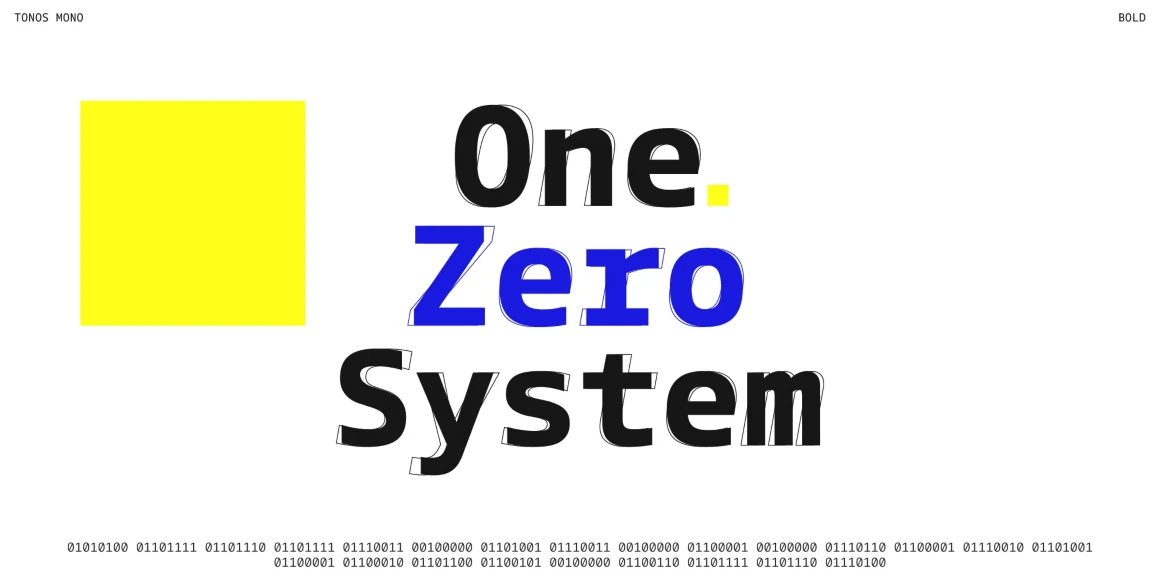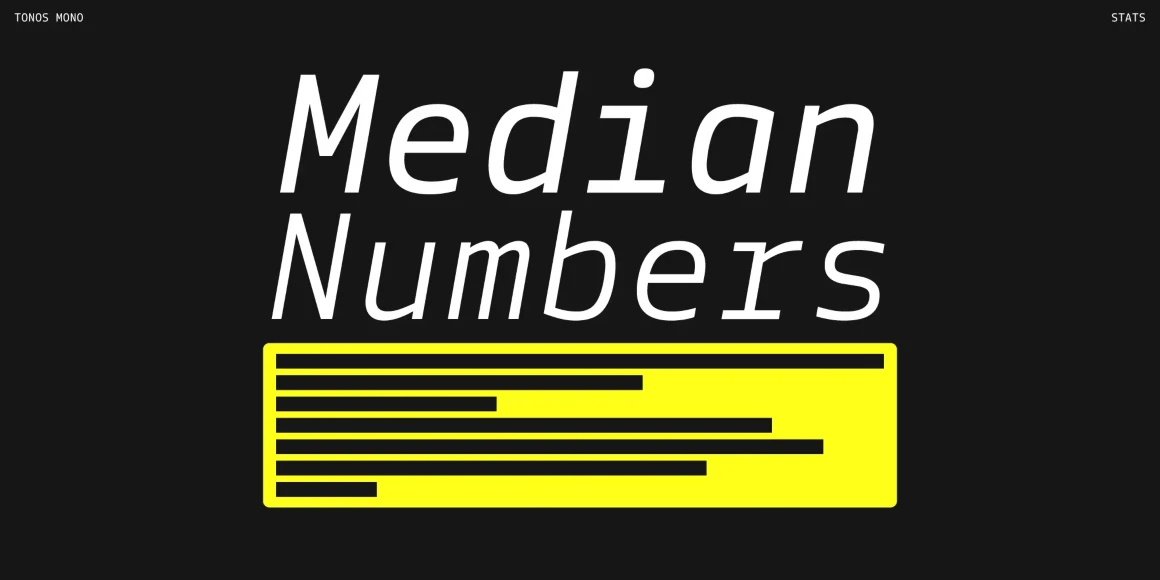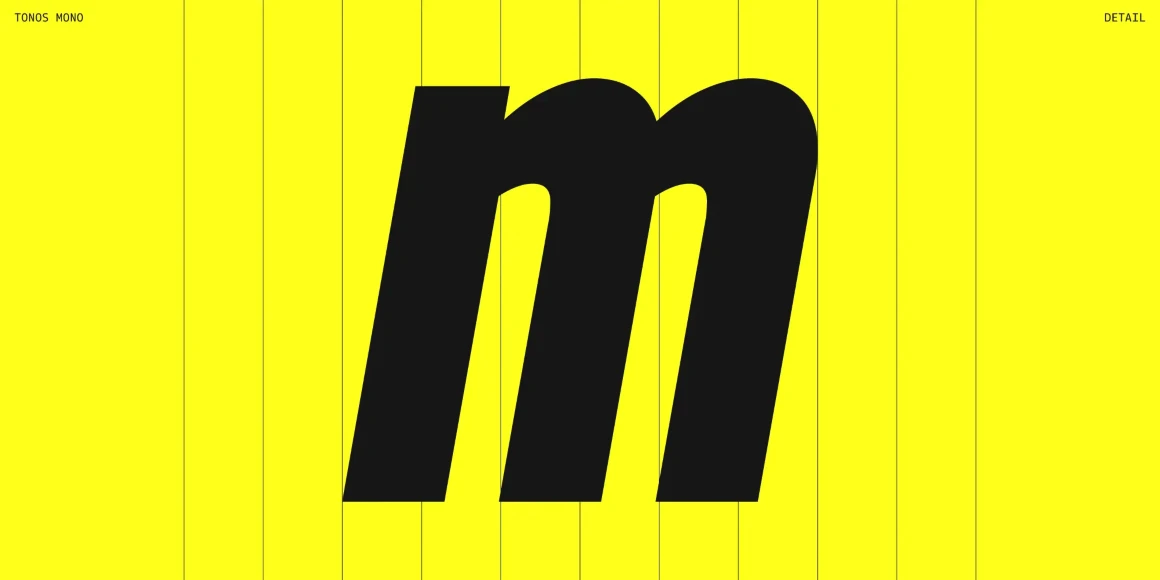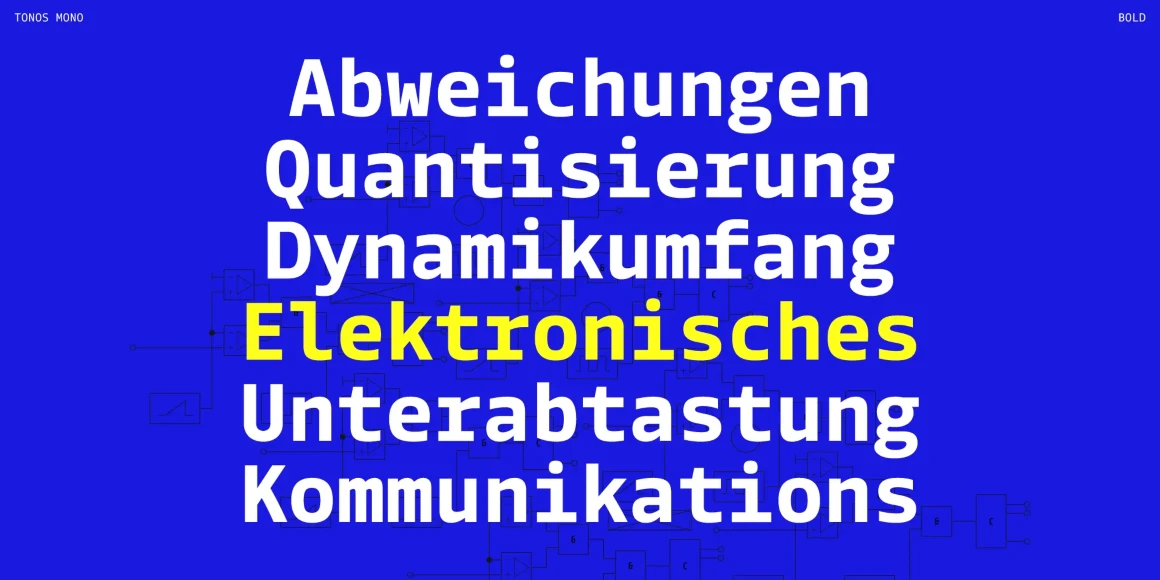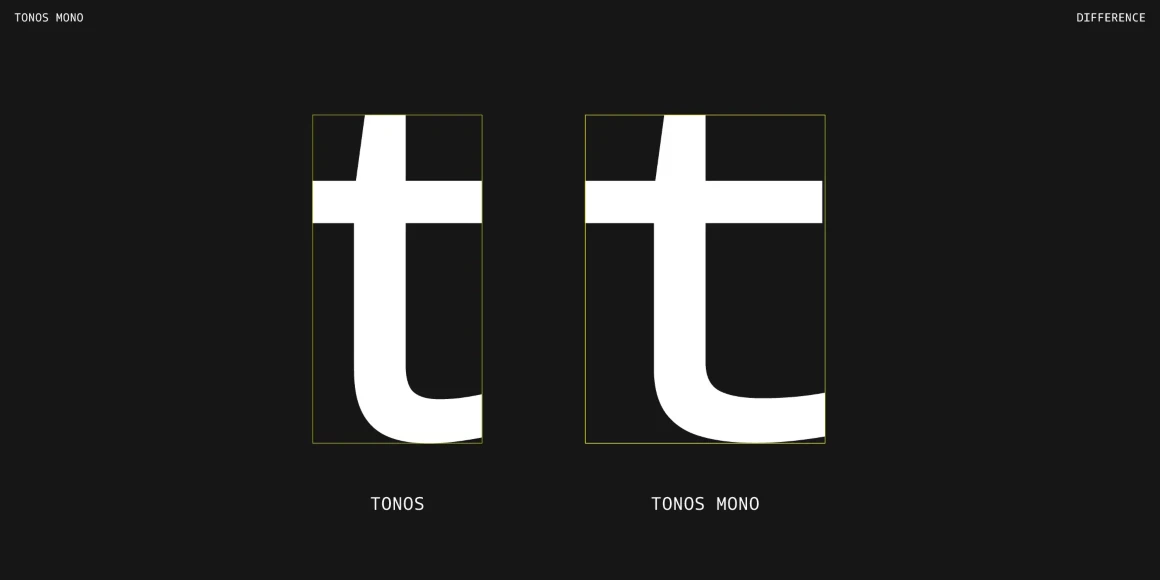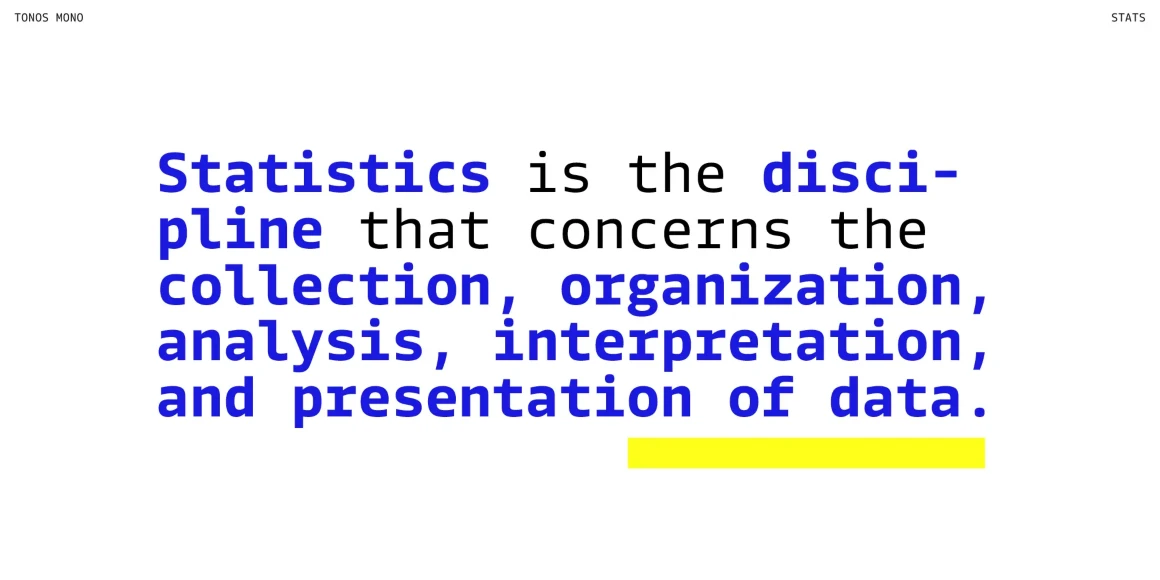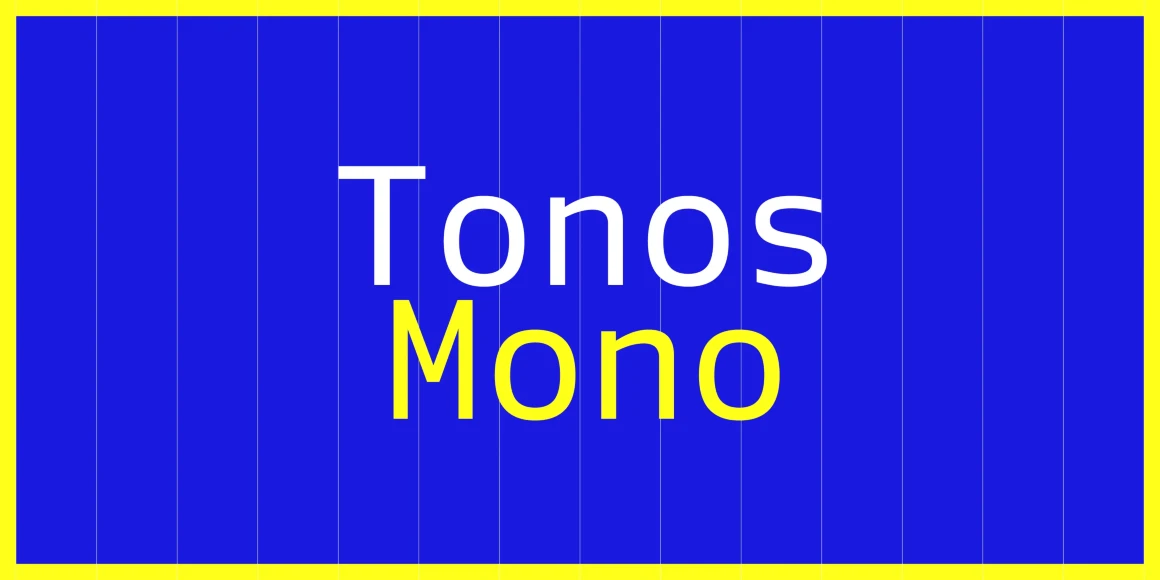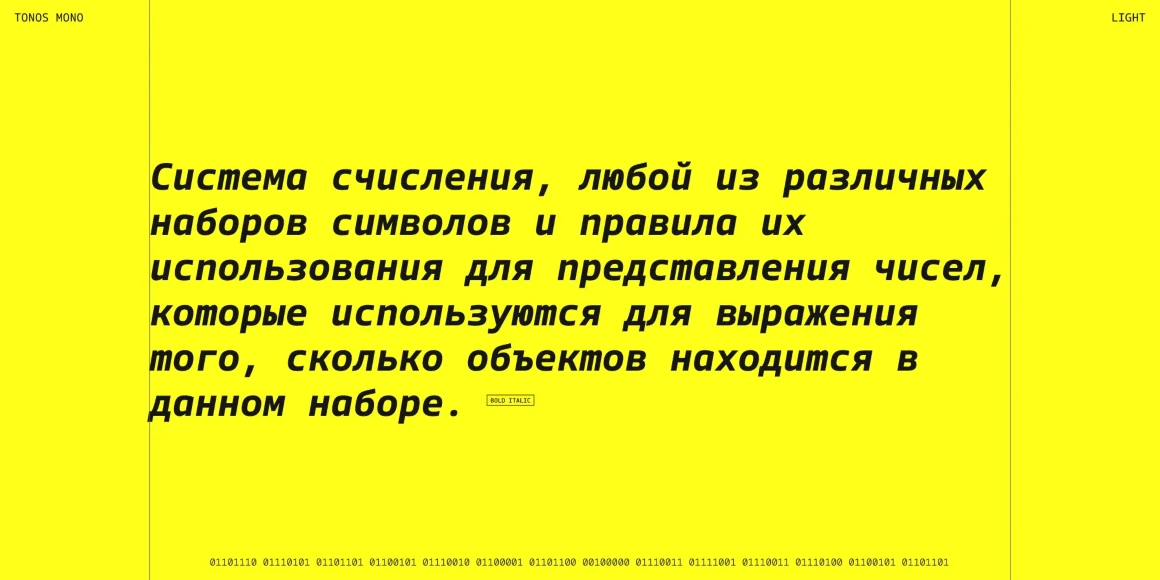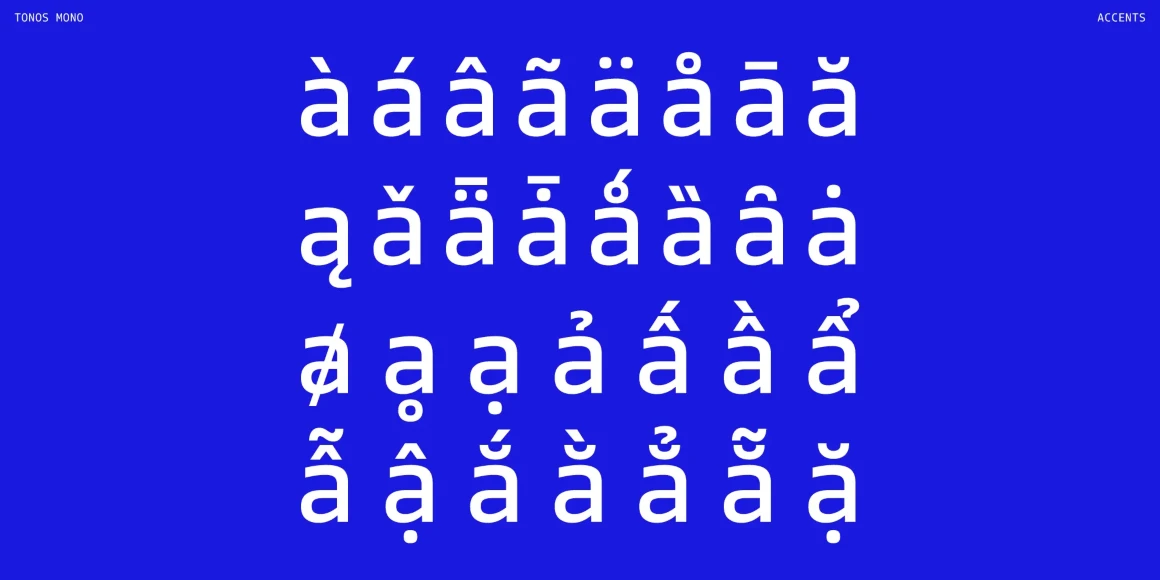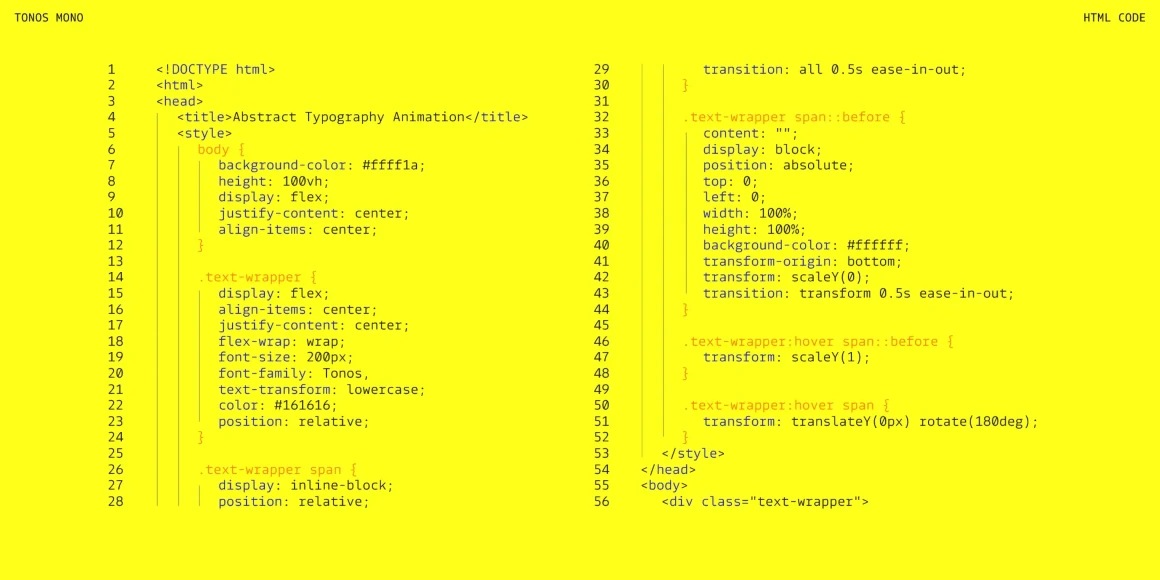
Tonos Mono
From Black[Foundry]
Tonos Mono is the monospace counterpart of Tonos, designed for UI and HMI contexts and supporting Latin, Cyrillic, and Greek scripts. Its glyph design has calligraphic roots, giving it a warm, humanistic quality carried across all scripts for harmony and legibility. Available in weights from Light to Bold with true italics, it is both sturdy and engaging. Developed over years, Tonos Mono combines functionality, style, and language support, making it an excellent choice for modern interface typography.
Designed by Clara Carpentier & Solenn Bordeau